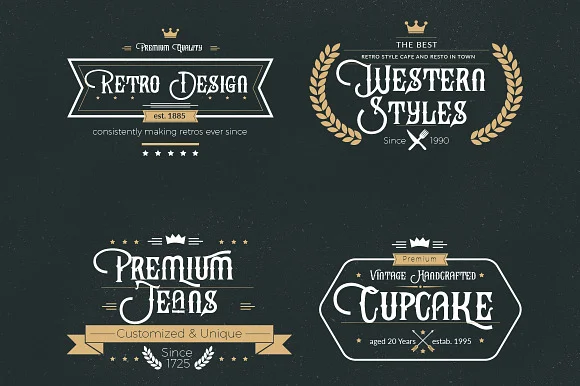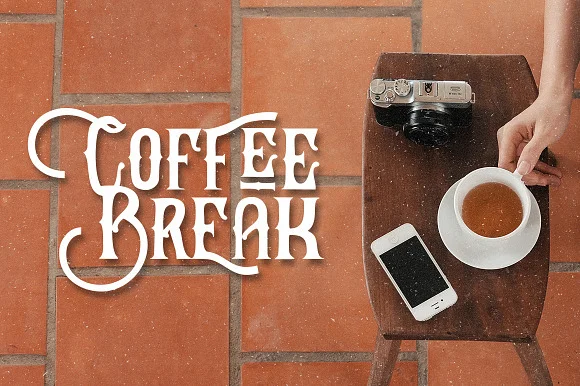
Black Heat Font
There is a particular satisfaction in finding a typeface that delivers the kind of restraint that lets content lead without compromise. Black Heat consistently provides it. The typeface brings a versatile sensibility to a broad range of creative disciplines, with distinctive character without sacrificing readability that holds up whether the work is print-first or screen-first.
In practice, Black Heat proves particularly effective for brand identity systems, product labels, packaging design, editorial layouts, logo design. Designers reaching for it find that the type decisions feel resolved rather than laboured — a useful quality when client timelines are tight.
Spacing and kerning pairs have been individually reviewed for the most common letter combinations in English and major European languages. The result is even type colour across continuous text, with no awkward gaps or collisions between adjacent characters.
The range of applications extends to web design, environmental graphics, advertising campaigns, annual reports. That breadth is deliberate: the proportions and spacing were stress-tested across a wide range of mock briefs before the typeface was finalised.
Graphic designers working on identity systems find Black Heat a reliable choice for projects that demand both personality and restraint. The design avoids the self-conscious quirkiness that dates quickly, settling instead for considered distinctiveness that holds up over time.